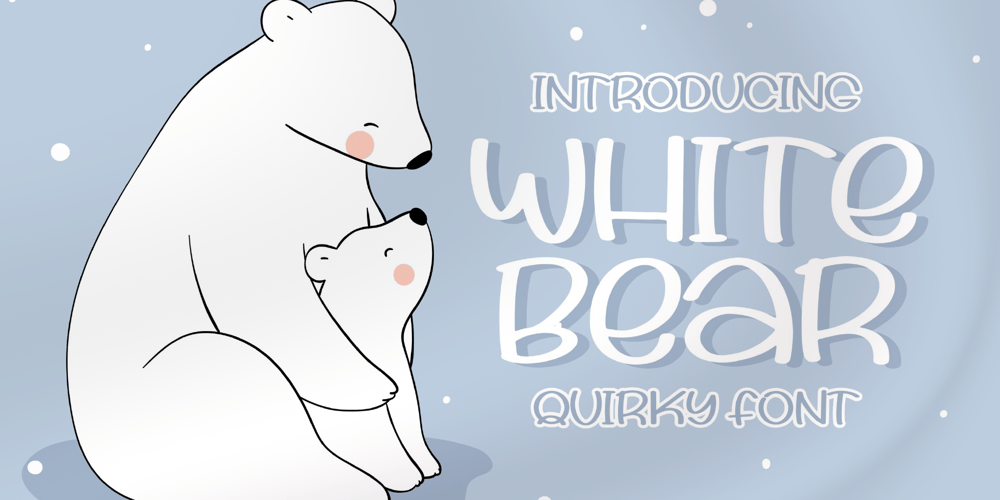
White Bear Font Family was designed by Dimas Alif Maulana and published by Integritype. White Bear contains 2 styles and family package options. White Bear is a quirky and fun looking display font. Adaptable, simple and friendly, this font will be an incredible asset to your fonts’ library, as it has the potential to elevate any creation.